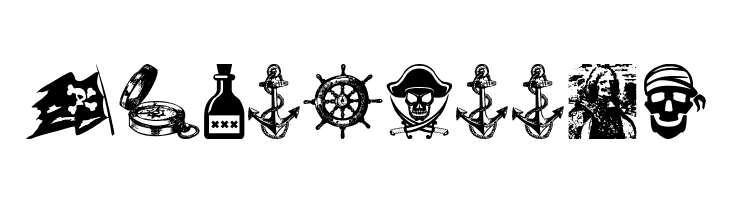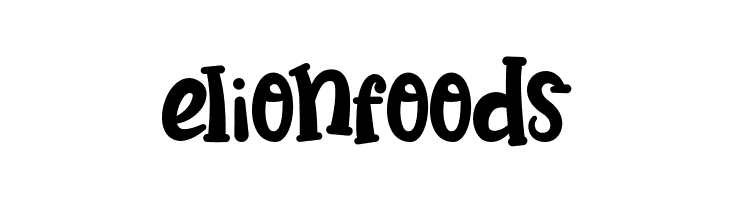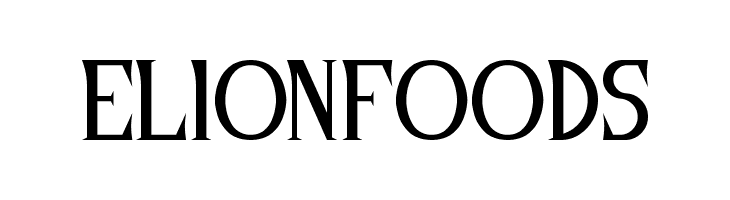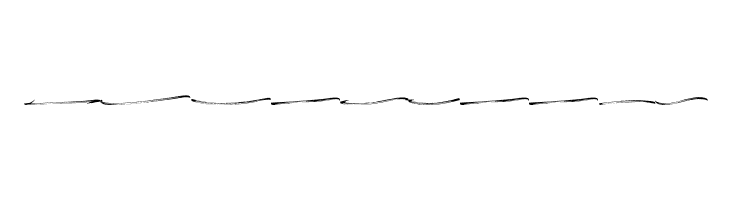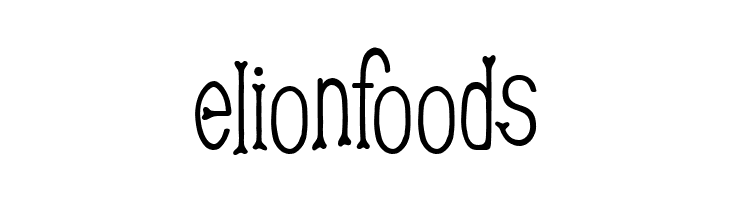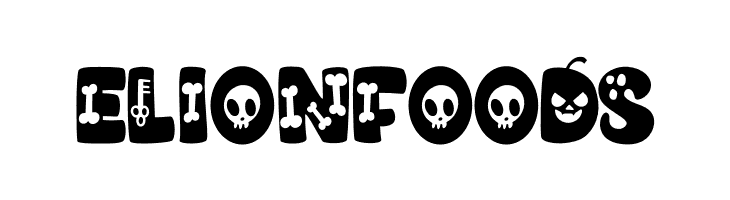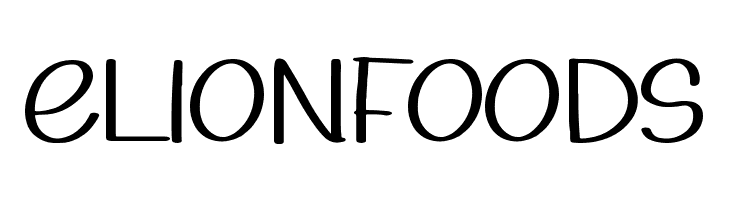
A geometric, three-dimensional font with a faceted, crystal-like design.
Pirate-themed decorative dingbat font with detailed icons.
A playful, hand-drawn font with bold, whimsical characters.
A classic serif font with elegant, elongated letterforms and sharp serifs.
A graceful and elegant script font with flowing, connected characters.
Halloween-themed decorative dingbat font with bold, spooky icons.
A playful, bone-like font with a hand-drawn appearance.
A bold, playful font with Halloween-themed elements and rounded characters.
A modern, elegant script font with flowing, cursive letters.
A playful, handwritten-style font with smooth, rounded characters.